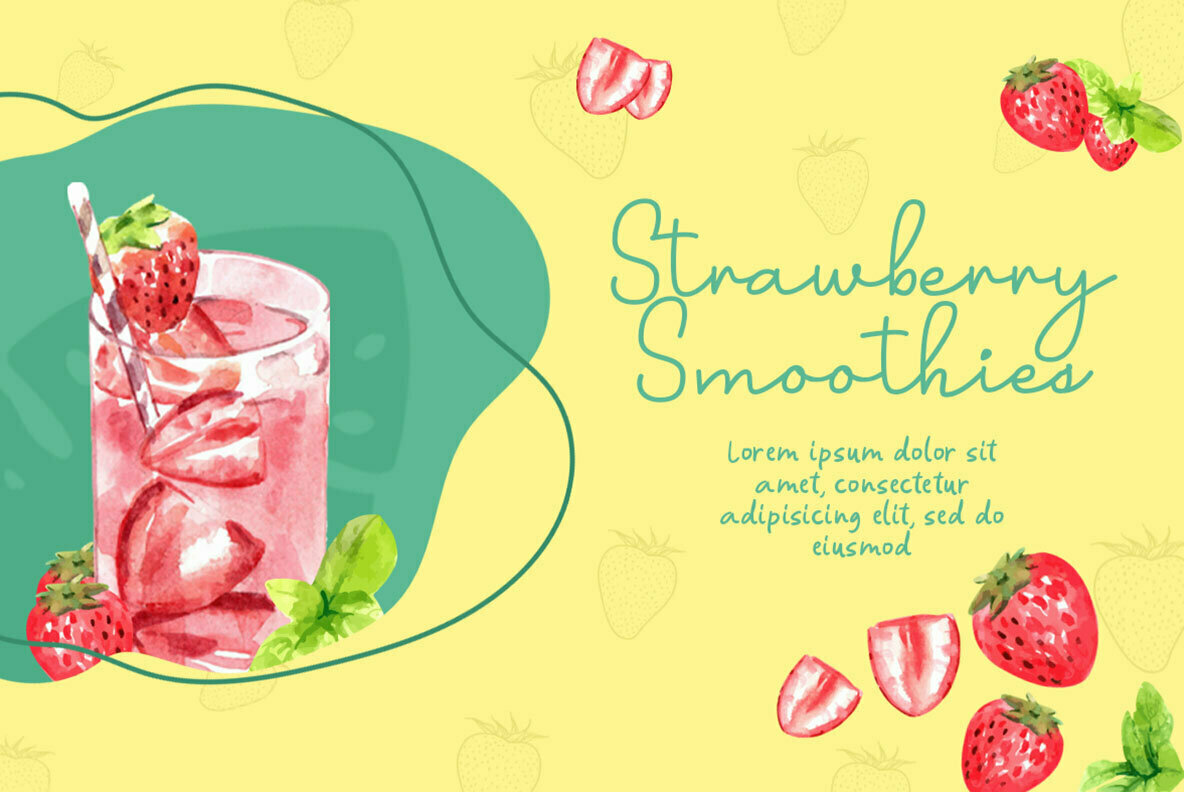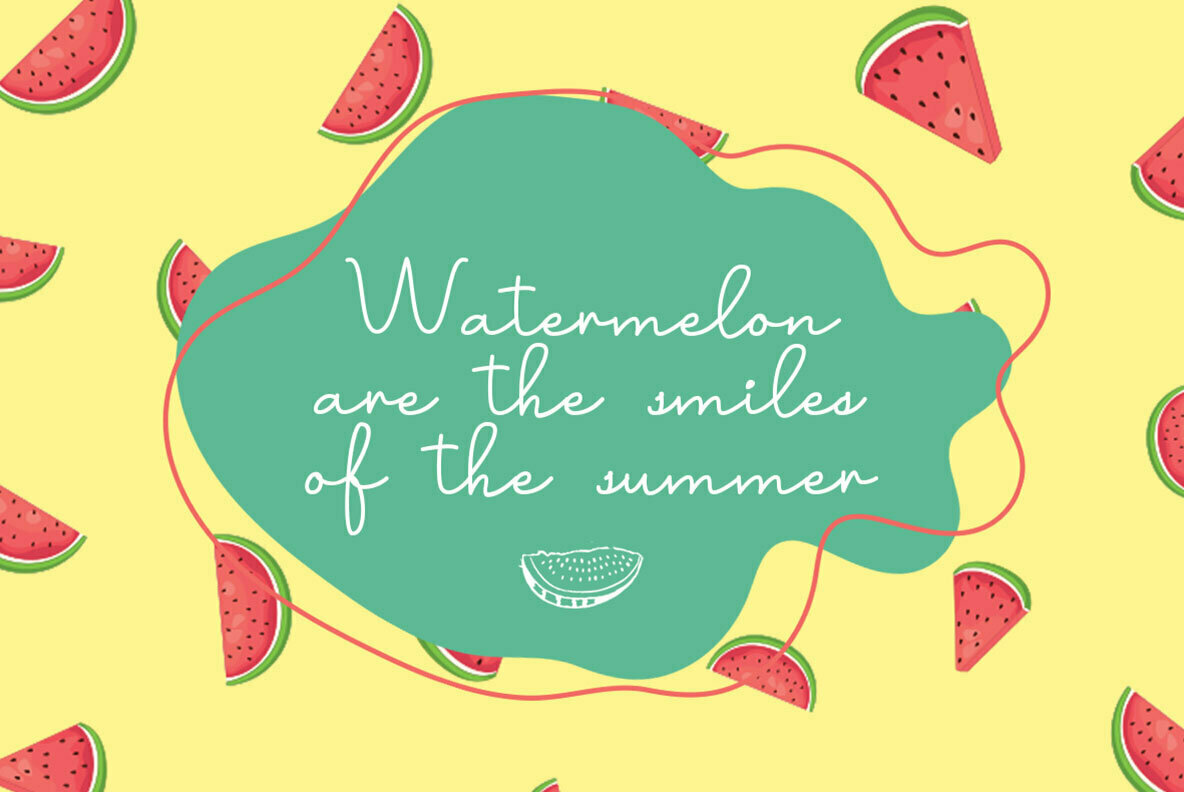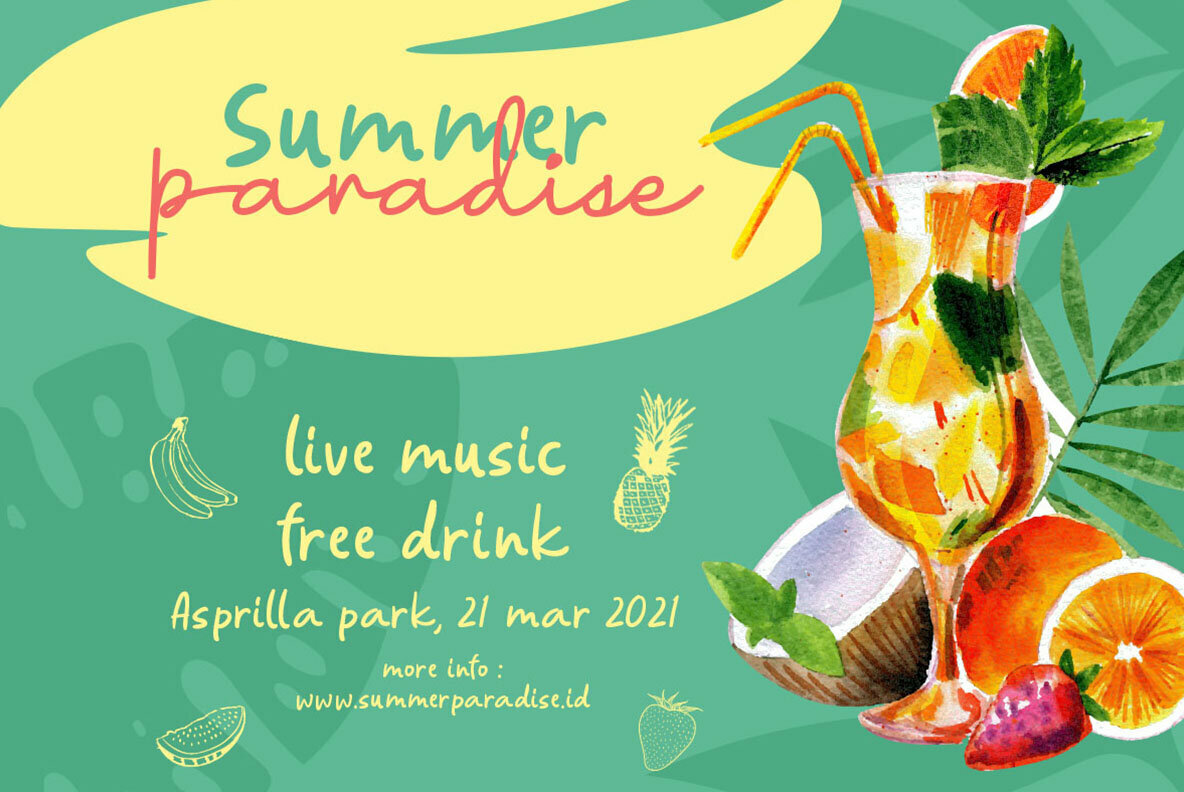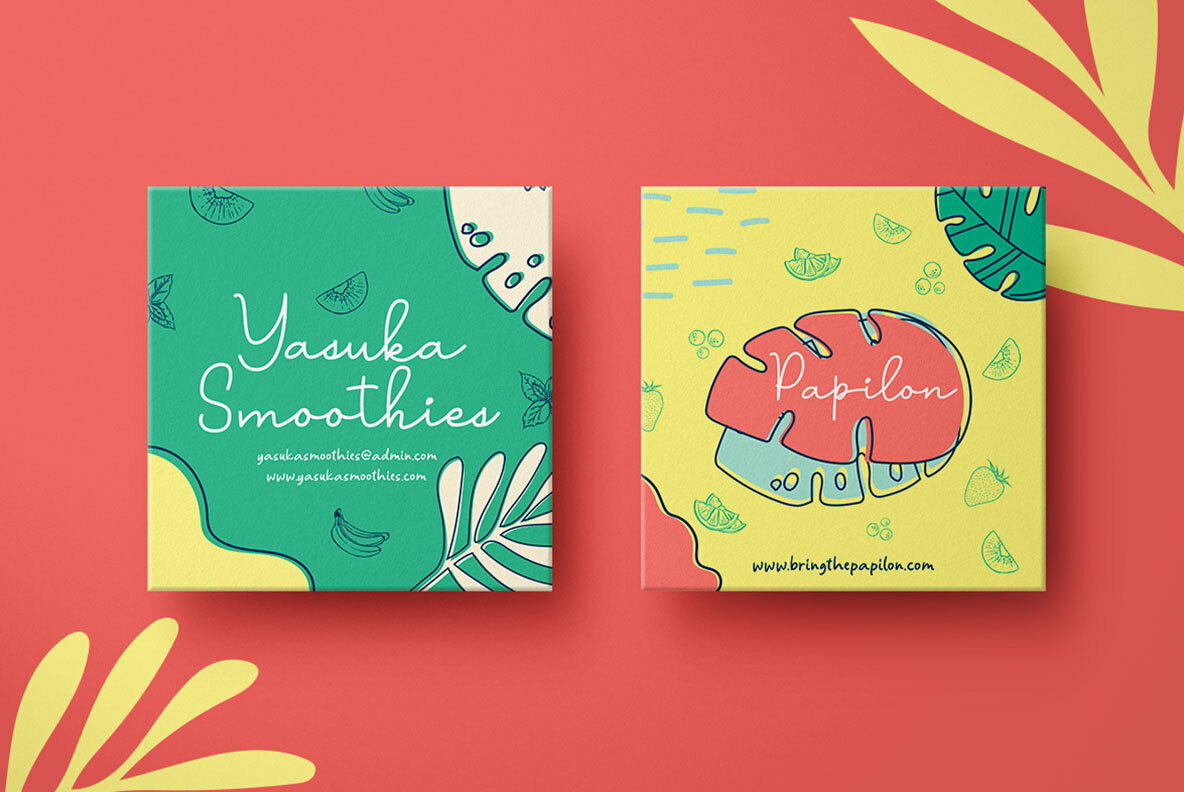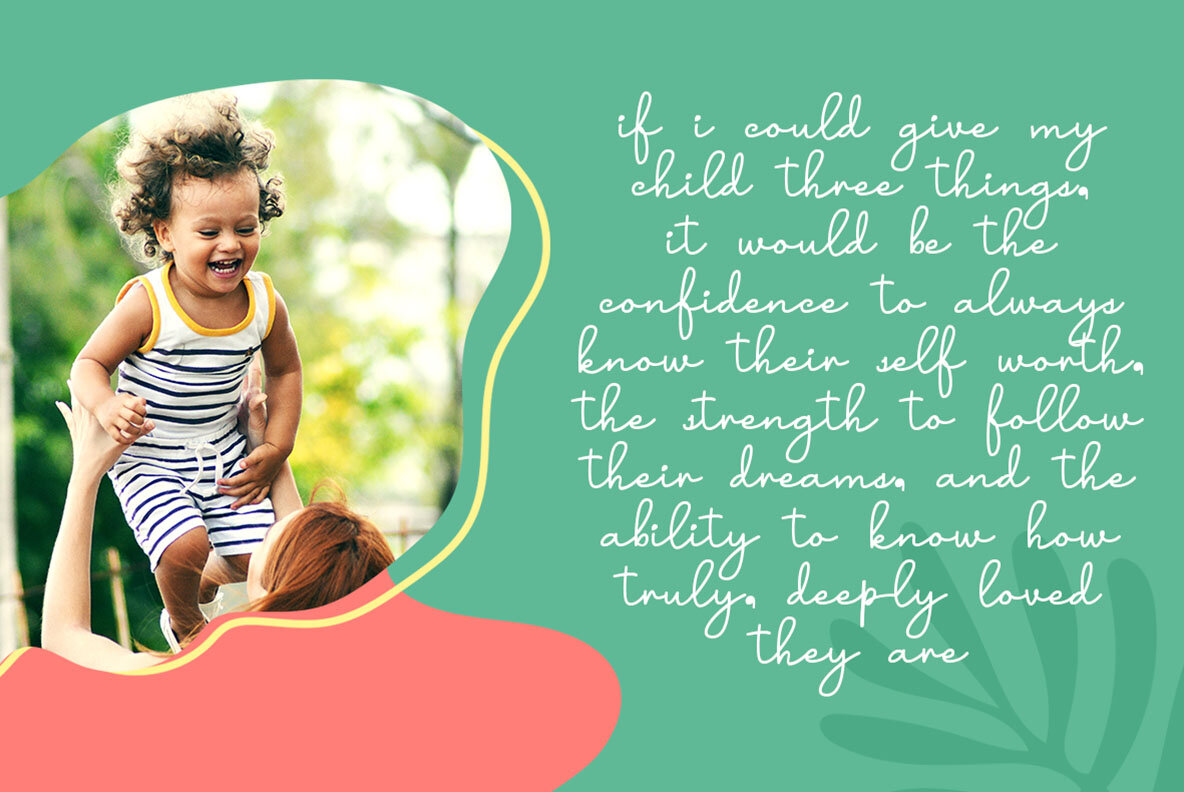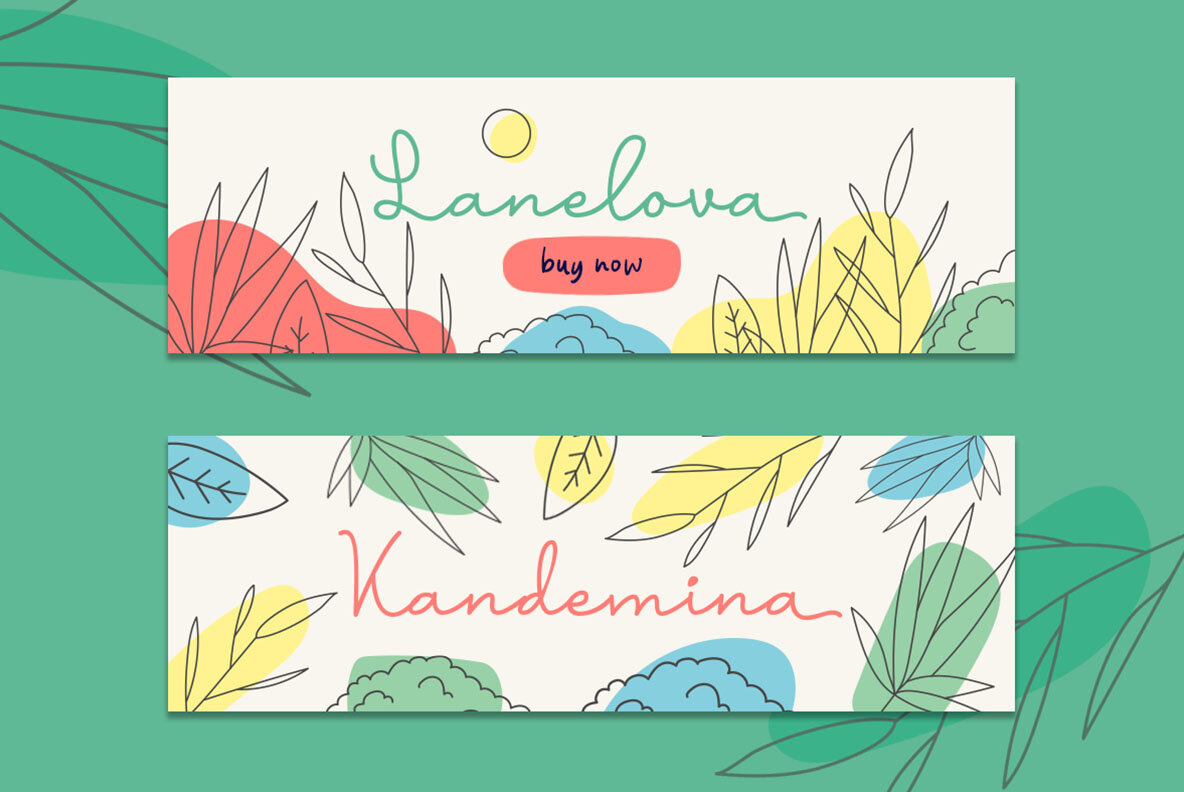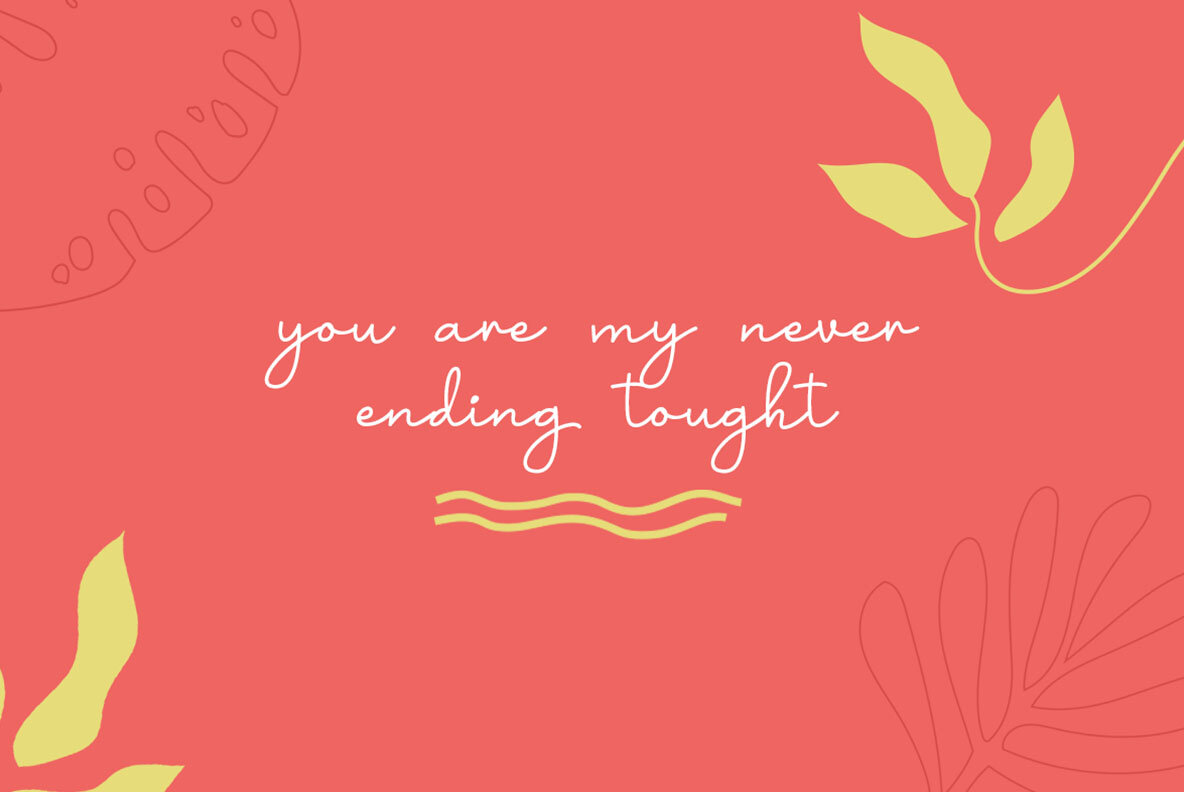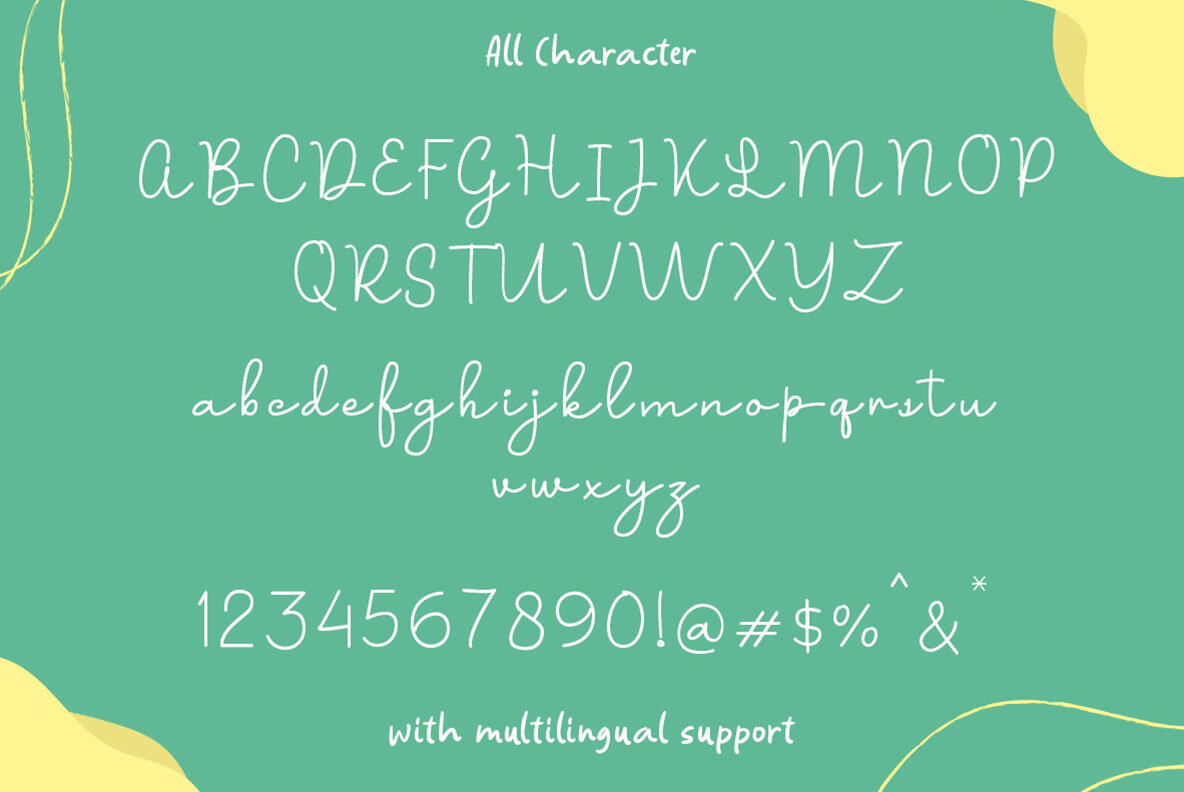
Bernida Font
Bernida Regular
Bernida merges adorable charm with a casual, playful essence, making it ideal for logos and a wide array of formal applications such as invitations, labels, magazines, books, and greeting or wedding cards. Its versatility extends to packaging, fashion, makeup, stationery, novels, and various advertising needs, providing a cohesive visual experience across different mediums.Bernida: Playful Script With a Casual Charm